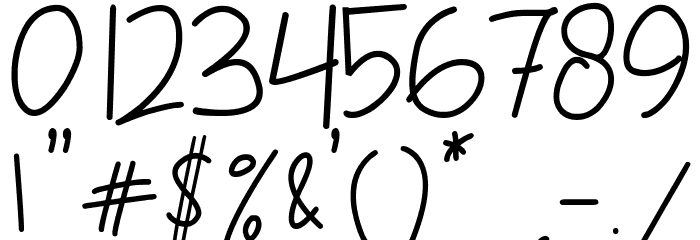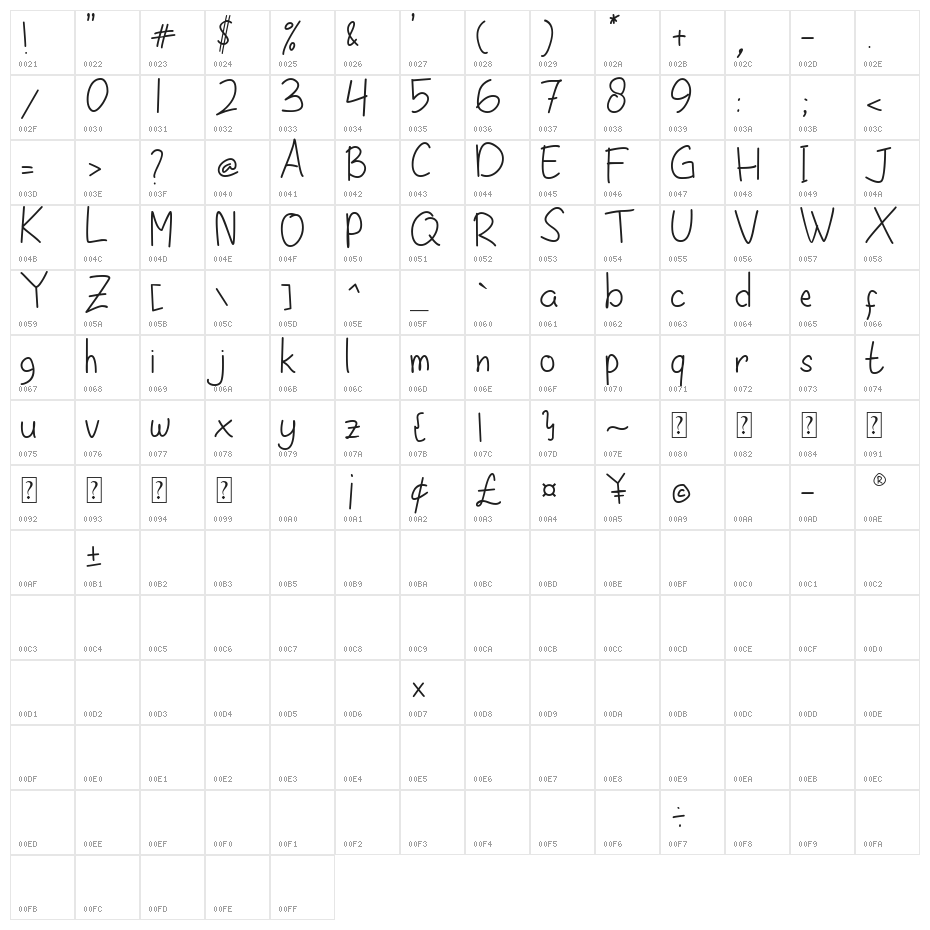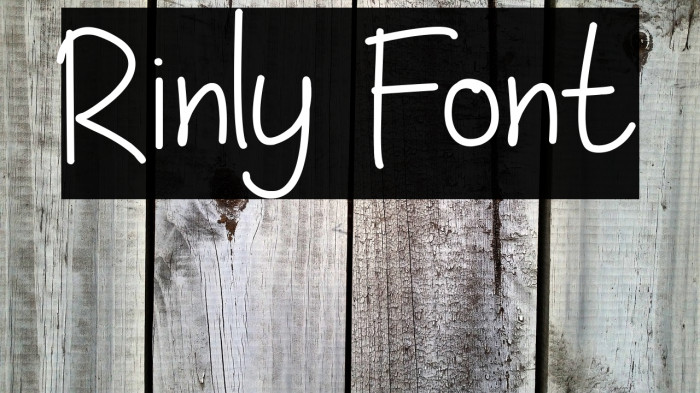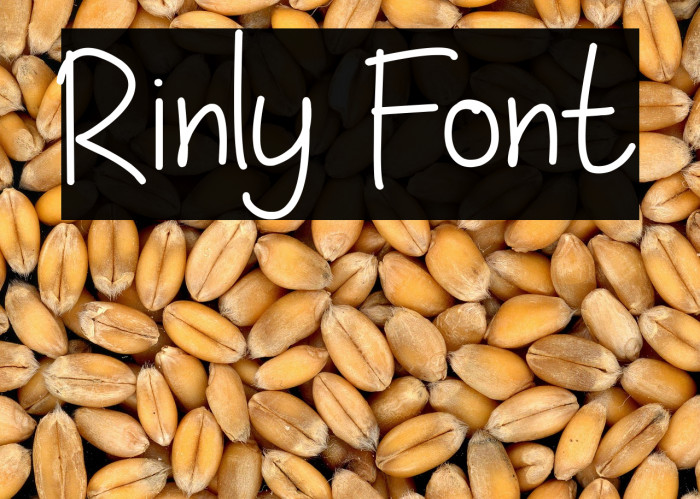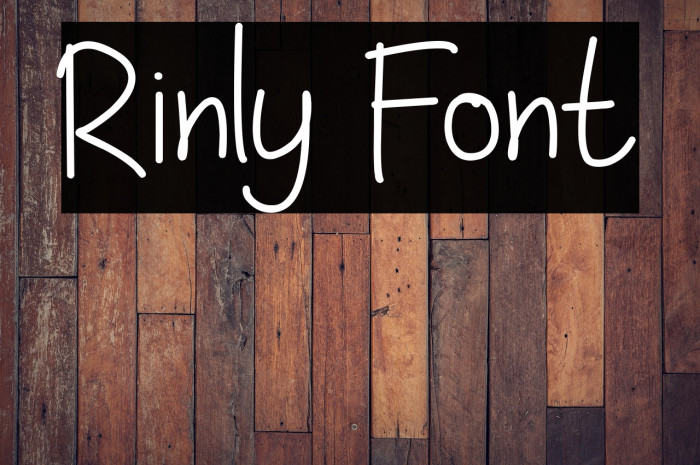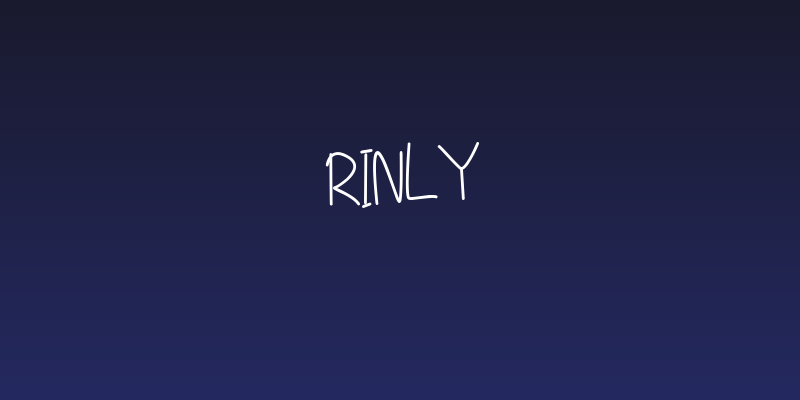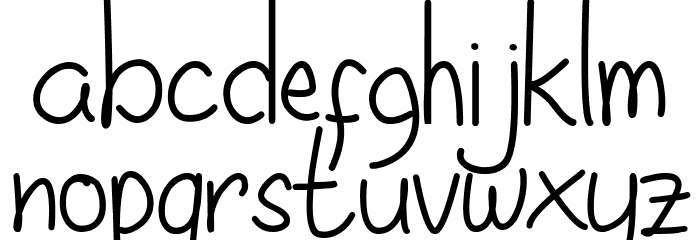
Rinly Font
Rinly Description
This font features a playful and casual handwritten style, characterized by its smooth, rounded edges and slightly irregular letterforms. The uppercase letters are tall and narrow, while the lowercase letters are more rounded and open, creating a friendly and approachable appearance. The numerals and special characters maintain the same playful aesthetic, making the font versatile for various informal applications. The overall design is consistent, with a uniform stroke width that gives it a clean and modern look.
| Use Case | Headlines, Informal text, Branding |
| Proposed Projects | Ideal for children's books, greeting cards, playful branding, and casual invitations. |